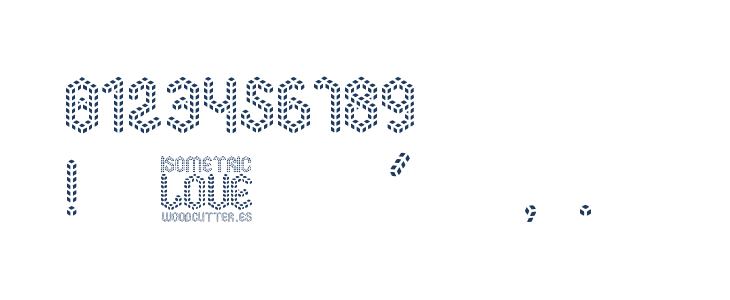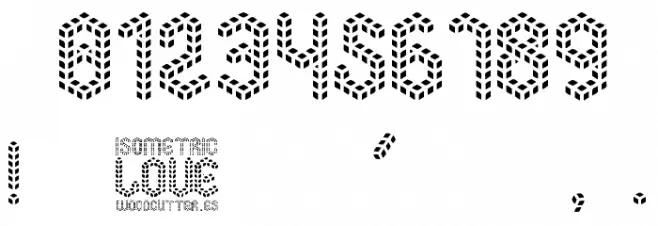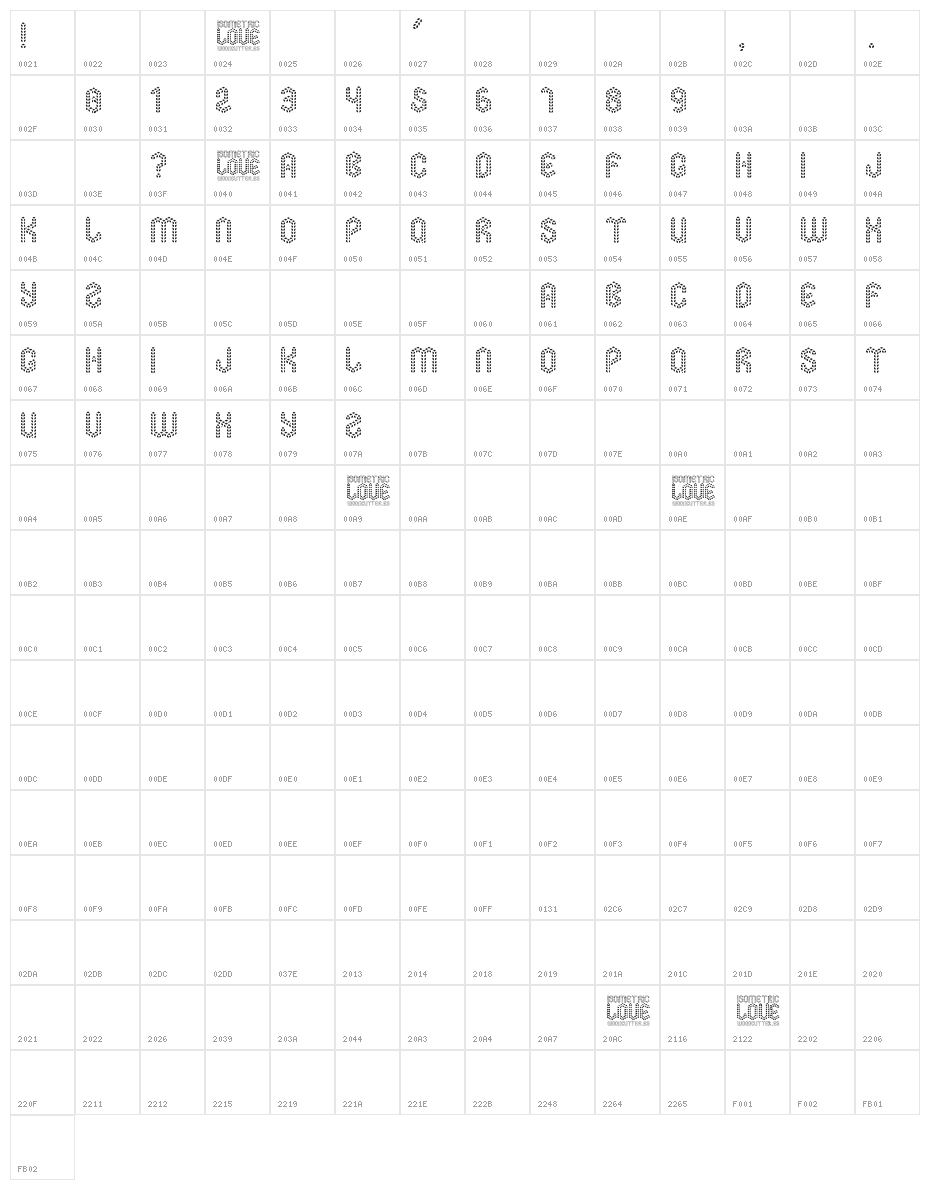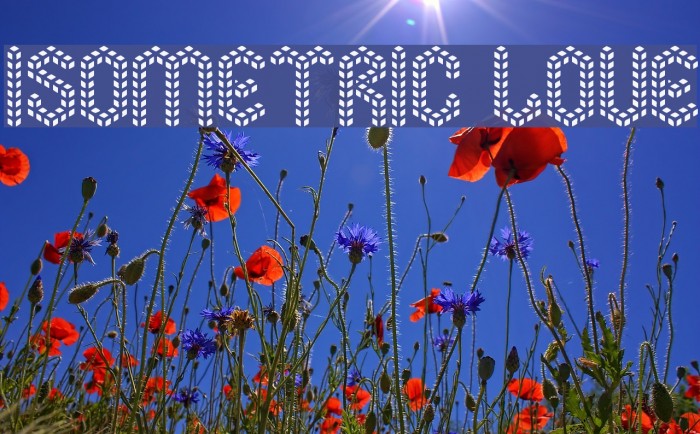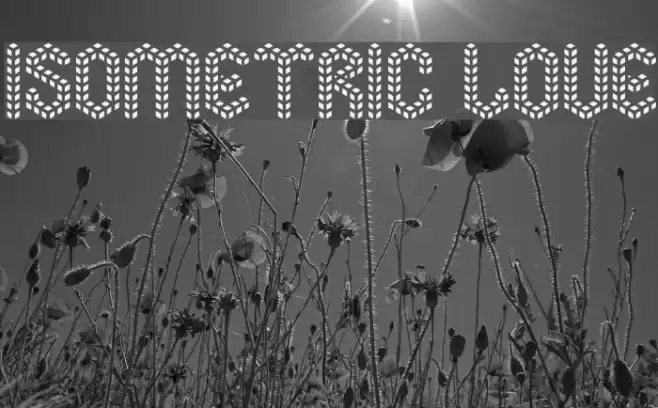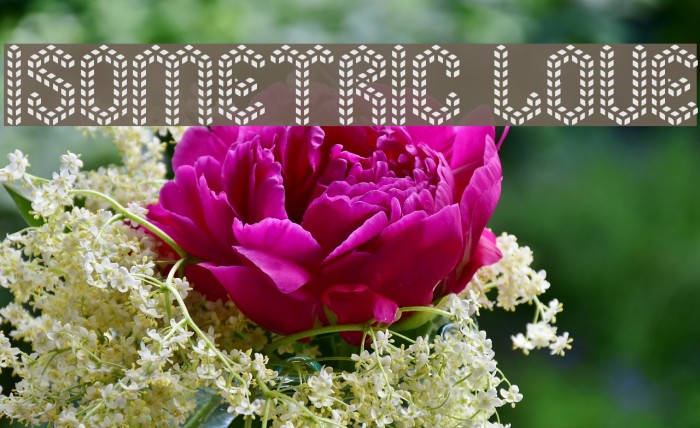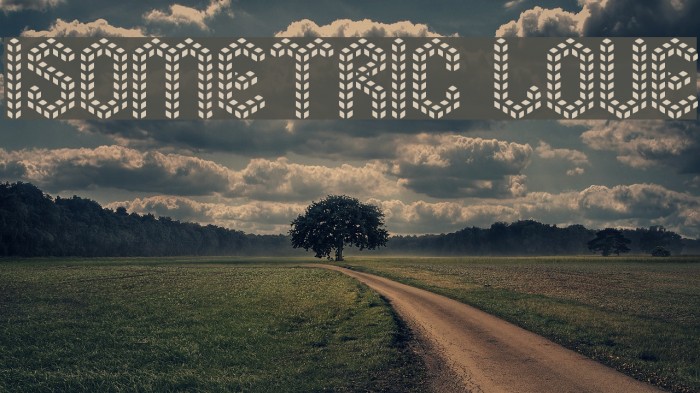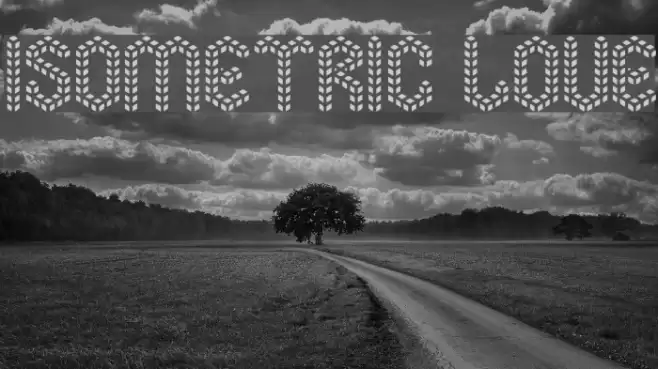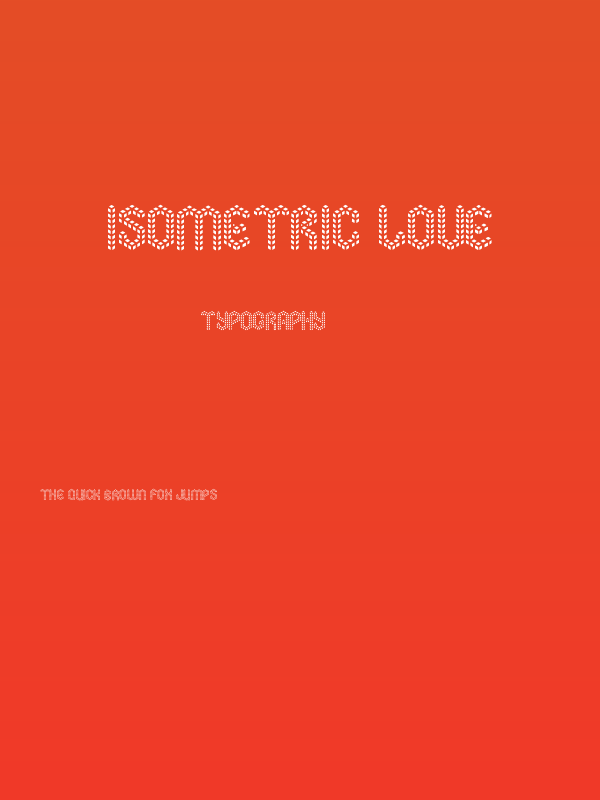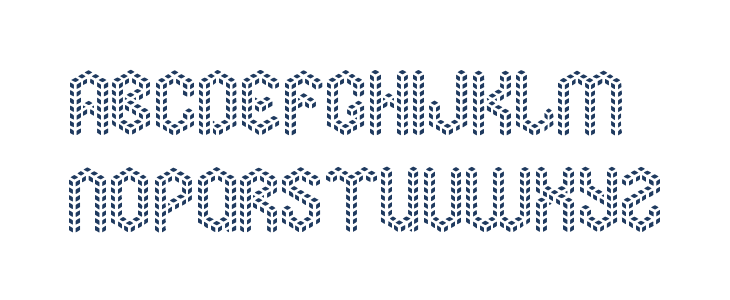
Isometric Love Font
Isometric Love Description
This font features a unique isometric design, creating a three-dimensional effect with its geometric patterns. Each character is composed of small, repeating blocks that form the illusion of depth and structure. The style is bold and eye-catching, making it ideal for creative and modern design projects. The uppercase and lowercase letters, along with numbers and special characters, maintain a consistent pattern, ensuring a cohesive look across all text. The font's intricate design is both decorative and functional, offering a distinctive aesthetic that stands out in any application.
| Proposed Projects | Ideal for posters, logos, branding, and any project requiring a modern, eye-catching typeface. |